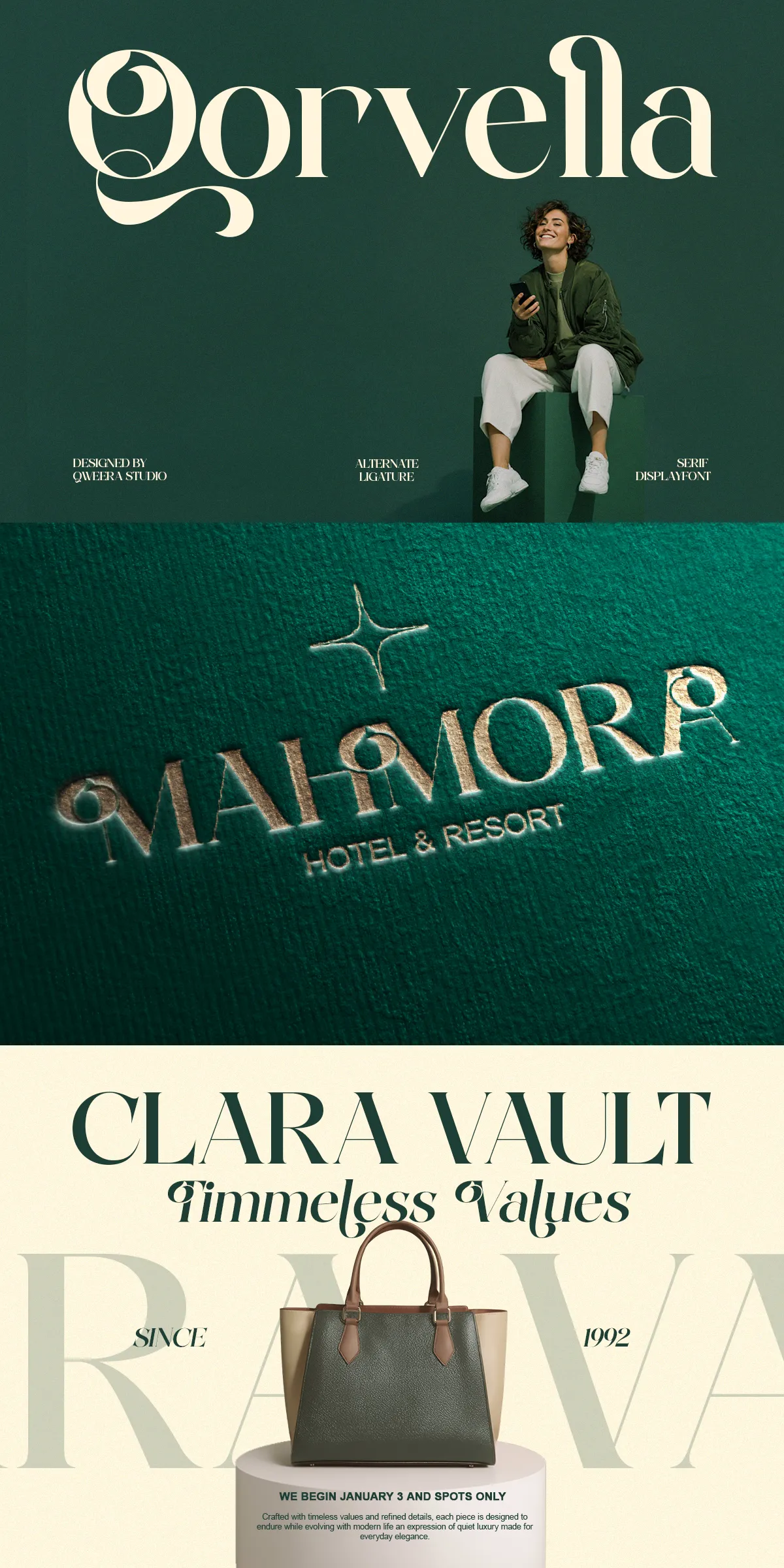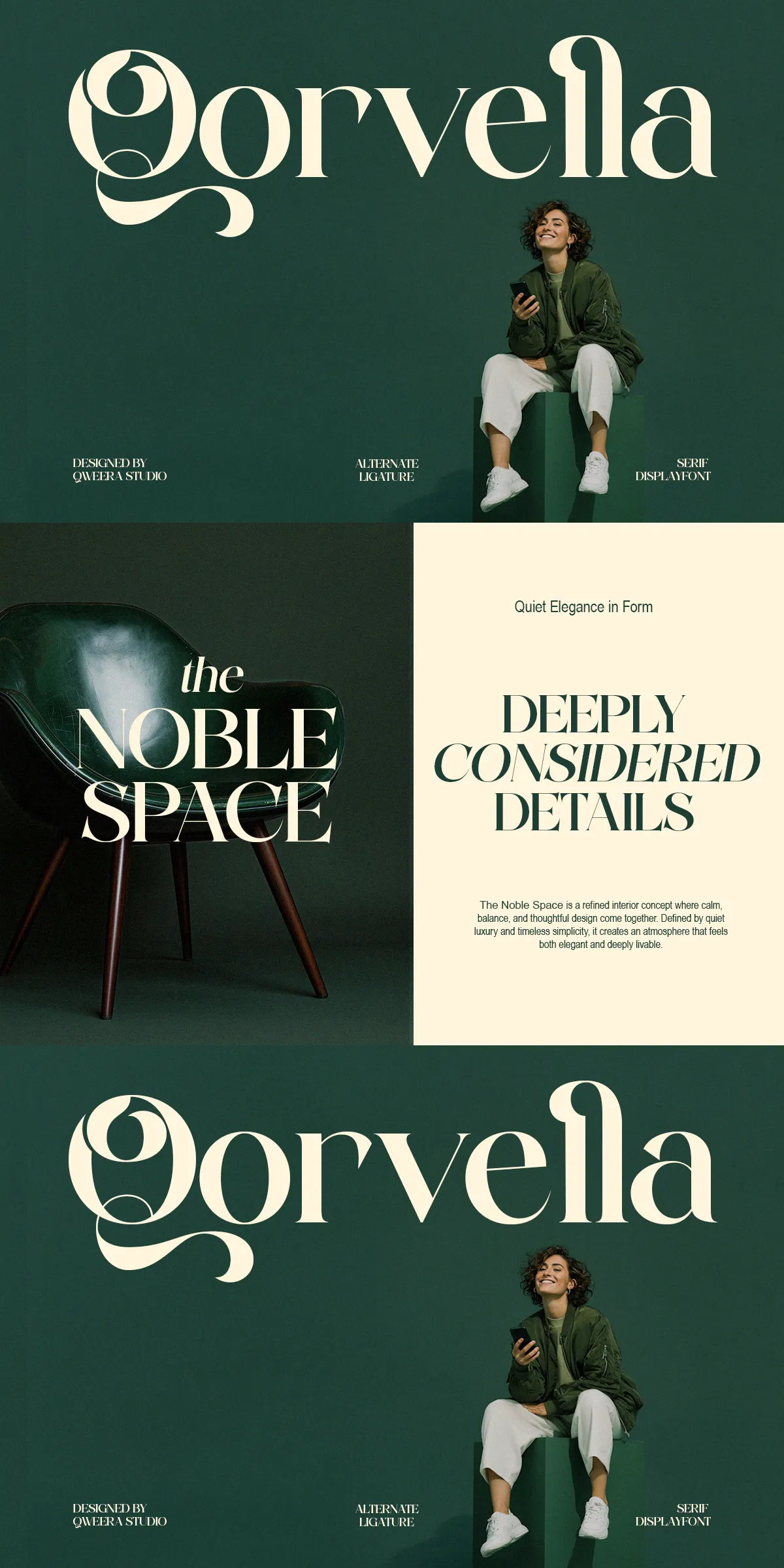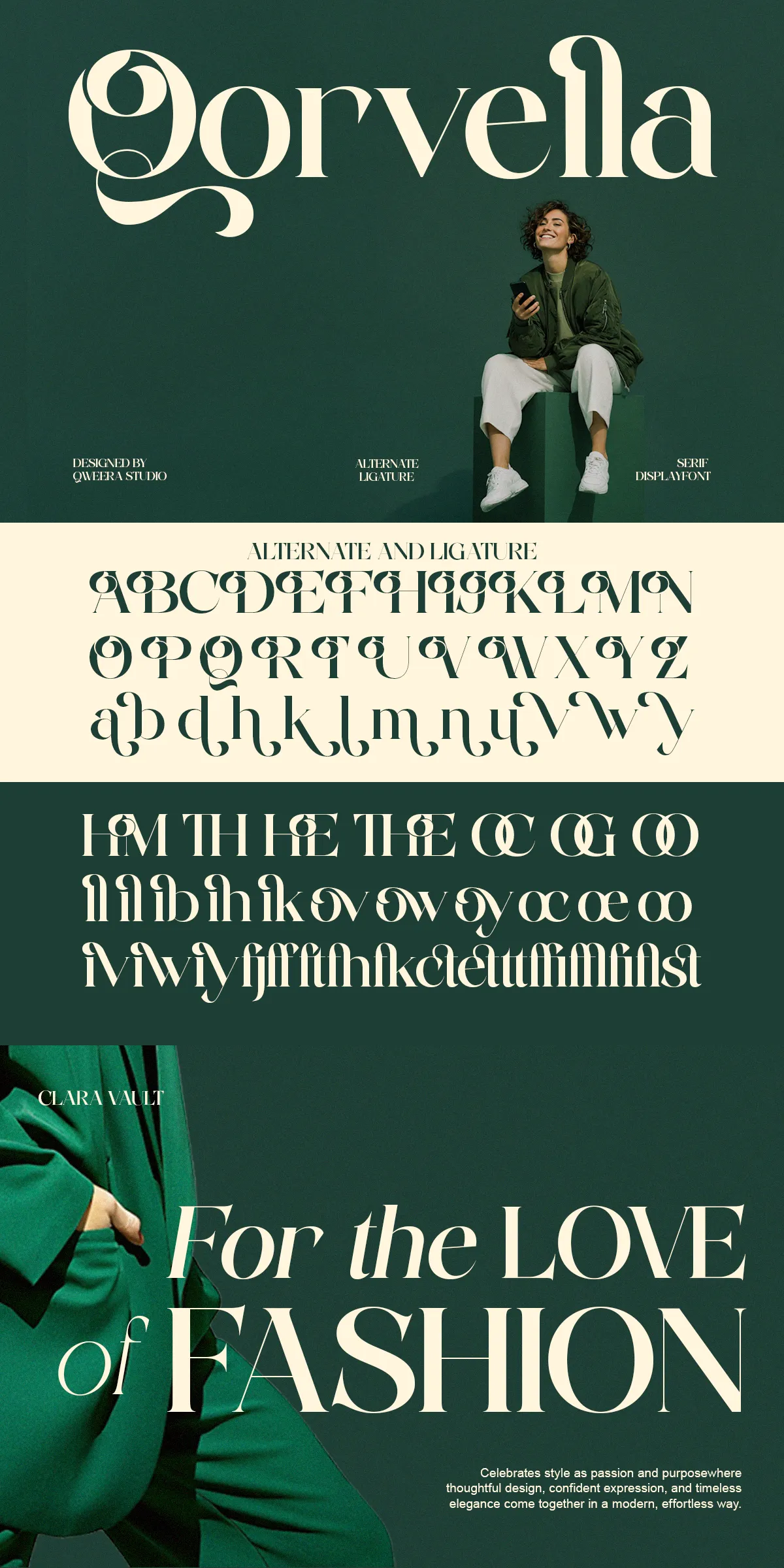
Qorvella delivers a polished, modern serif voice that actively elevates visual identities. Designed with smooth curves, balanced stroke contrast, and refined ligatures, Qorvella creates an immediate sense of sophistication and premium quality. Use Qorvella to craft upscale logos, boutique packaging, magazine headlines, wedding stationery, and fashion campaigns that demand clarity, poise, and a contemporary luxury aesthetic. This family empowers designers to present brands with confidence and consistent elegance across print and digital touchpoints.
Design Characteristics That Define Qorvella’s Distinctive Tone
Qorvella combines classical serif proportions with modern refinements to produce letterforms that read as both timeless and relevant. The typeface presents smooth terminals, moderate contrast, and generous counters that deliver legibility at display sizes while preserving subtle detail in smaller text. Carefully drawn ligatures and alternates enable expressive logotypes and decorative headlines without compromising readability. Qorvella’s rhythm and balance actively support brand storytelling, making it equally effective for luxury goods and refined editorial layouts.
Key Features and Technical Specifications of Qorvella Typeface
- Complete uppercase and lowercase sets to support versatile typography and brand systems
- Alternates and ligatures for custom wordmarks, logo refinement, and decorative headlines
- Multilingual support with extended diacritics to serve global branding needs
- PUA-encoded glyphs for straightforward access to stylistic characters in common design tools
- Included Regular and Italic styles to maintain voice across varied layouts
Primary Use Cases Where Qorvella Delivers Immediate Impact
Apply Qorvella where refined character and visual authority matter. The typeface excels in fashion and beauty branding, lending logos and headlines a poised, editorial quality. For boutique packaging, Qorvella reads clearly on labels and boxes while signaling premium craft. Wedding invitations and event stationery gain a ceremonial tone from its graceful curves and ligatures. Editorial teams can employ Qorvella for magazine titles and feature spreads that require typographic distinction. In every context, Qorvella actively communicates quality and considered design.
Practical Implementation Tips to Maximize Visual Effect
- Pair Qorvella with a neutral sans-serif for body copy to preserve readability while highlighting serif display elements.
- Increase tracking and scale for headlines to showcase sculpted terminals and ligature detail.
- Use alternates selectively to customize wordmarks; avoid overusing decorative features in dense text.
Styling Suggestions and Typeface Pairings for Cohesive Systems
Create harmonized palettes using soft neutrals, muted metallics, or deep jewel tones that complement Qorvella’s refined voice. Pair Qorvella with geometric or humanist sans-serifs to generate clear hierarchy and modern contrast. Introduce minimal ornamentation—thin rules, monograms, and badges—that echo the serif’s ligature forms without competing for attention. For brand marks, experiment with mixed-case treatments and restrained swash alternates to convey elegance while preserving legibility.